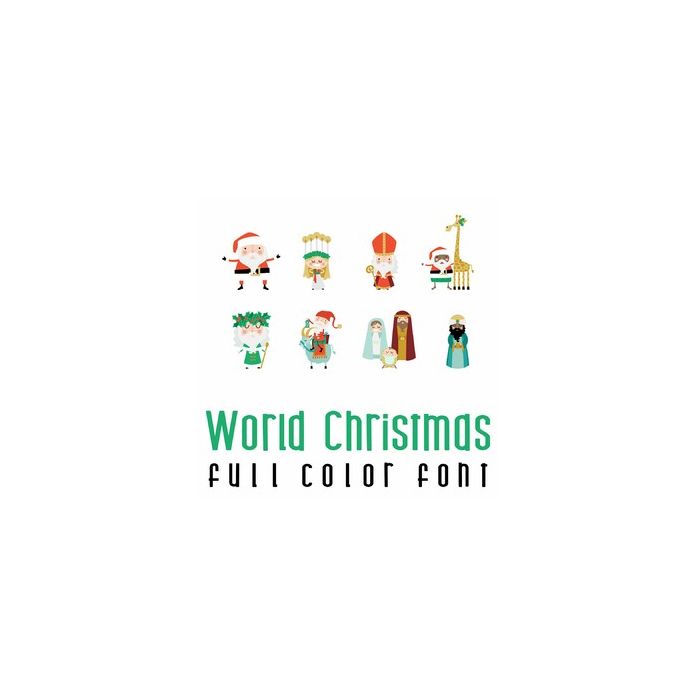
Celebrate the holiday season with adorable santa's and gift givers from around the world with this full color font. Perfect for advents, card making, planners and more!